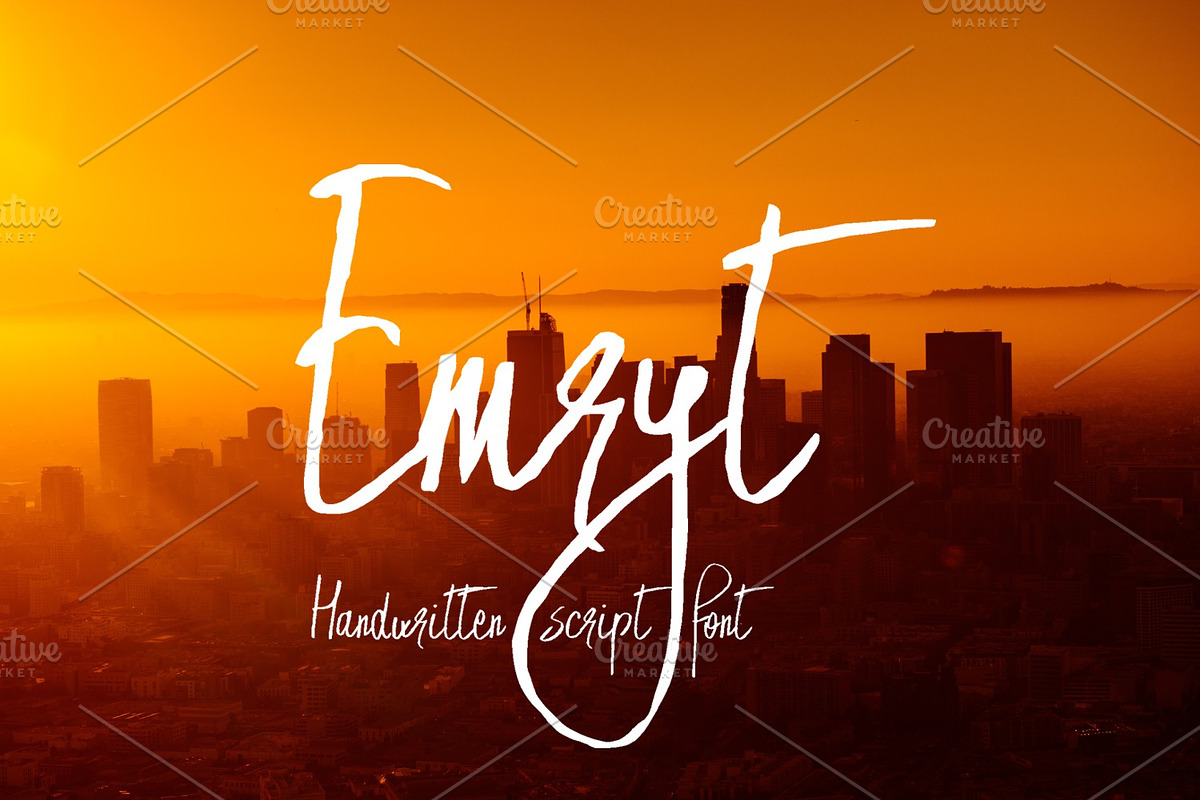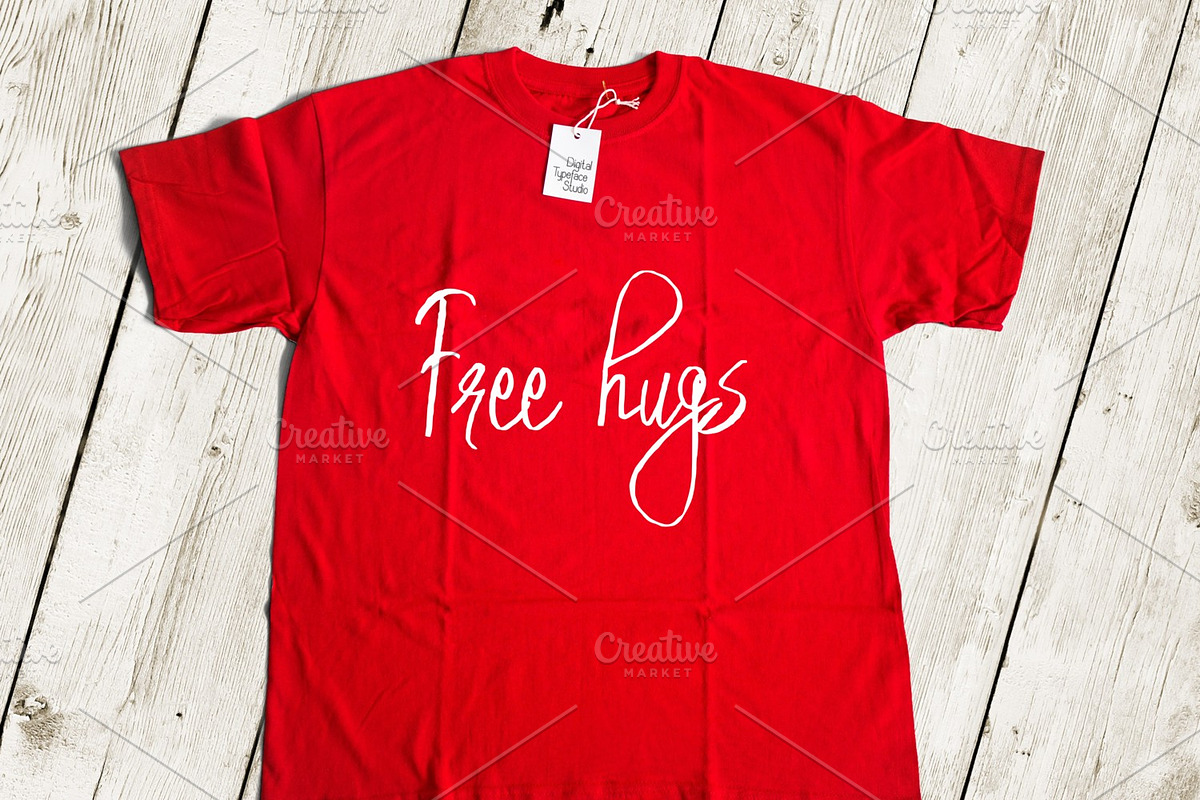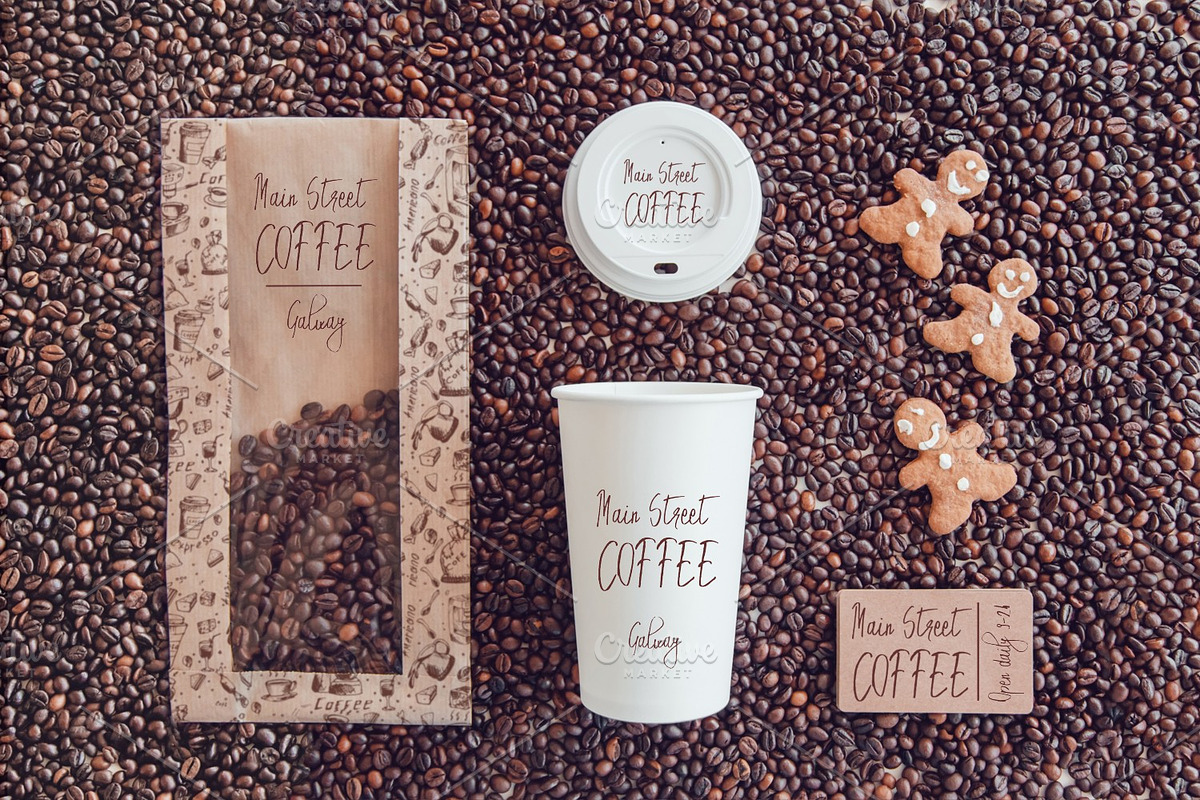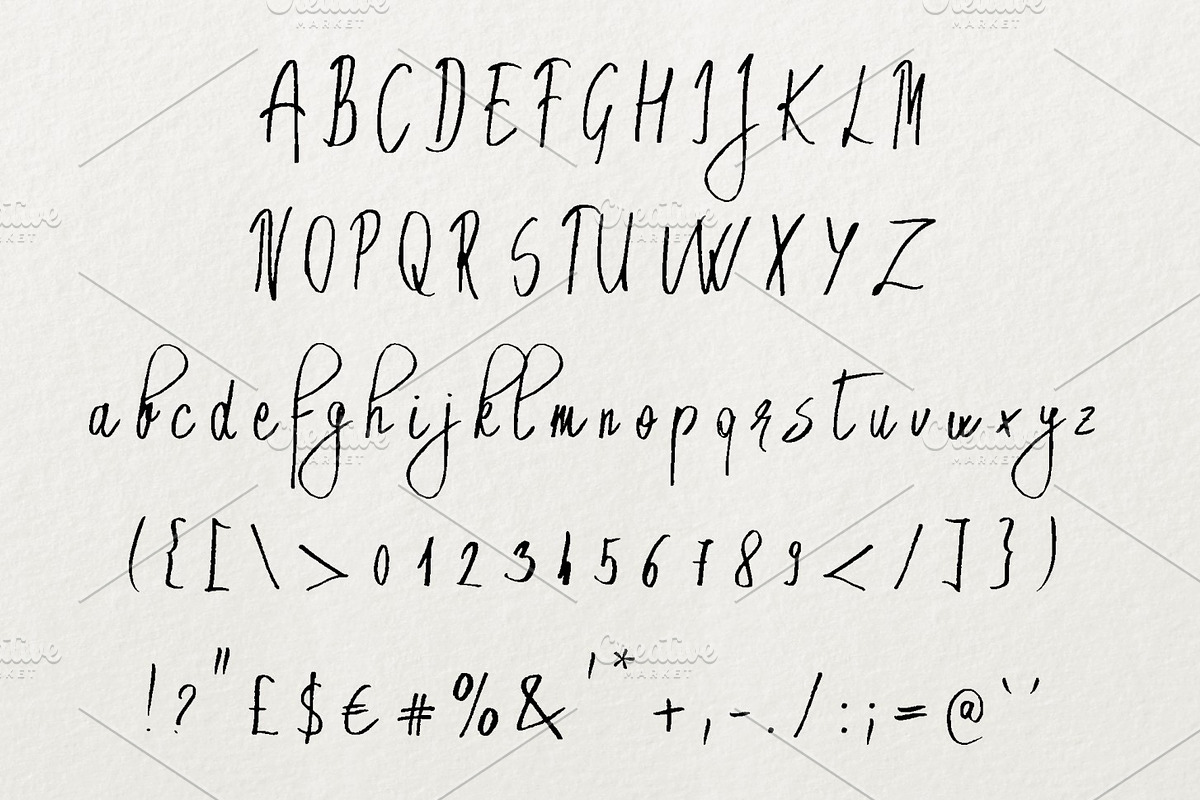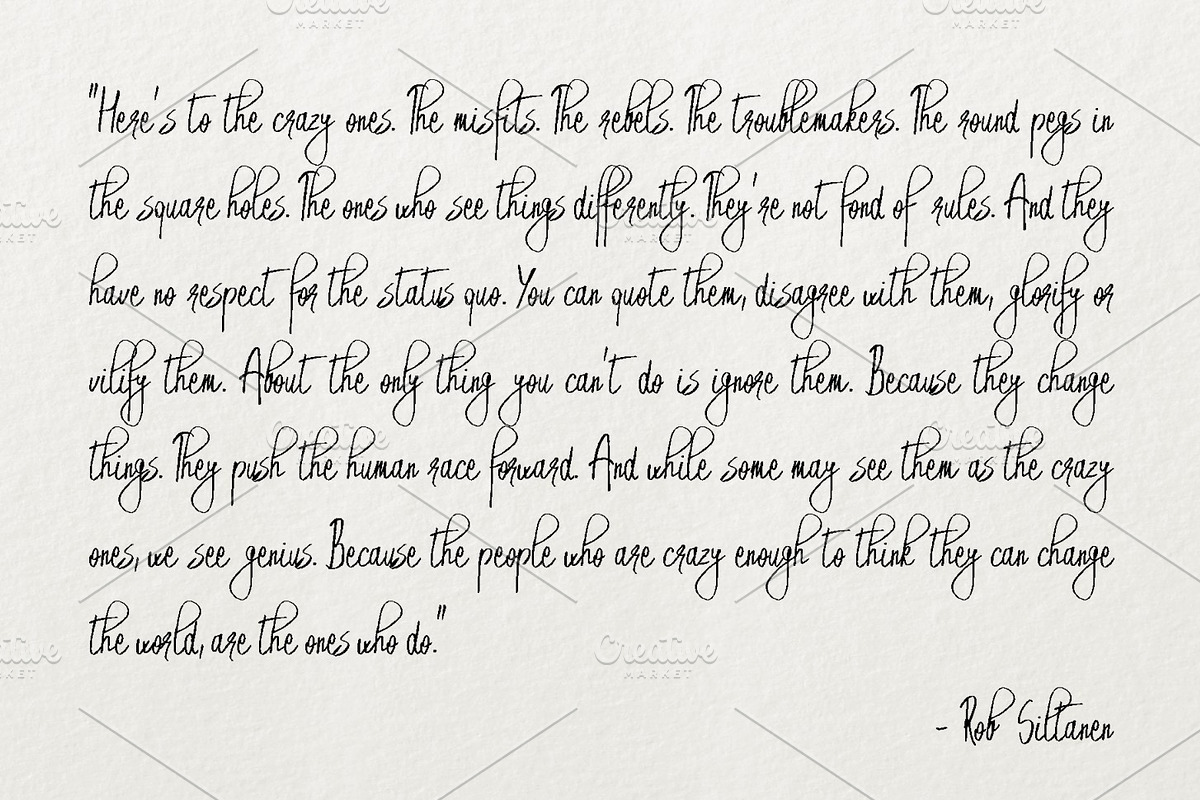
Emryt
Introducing Emryt handwritten typeface.
Emryt is a handwritten script font which combines a rough and modern feel. Perfect for project which requires of "rough edge" to them.
Why Emryt is worth a look
Emryt by Digital Typeface Studio fits naturally into Branding, posters, packaging, typography.